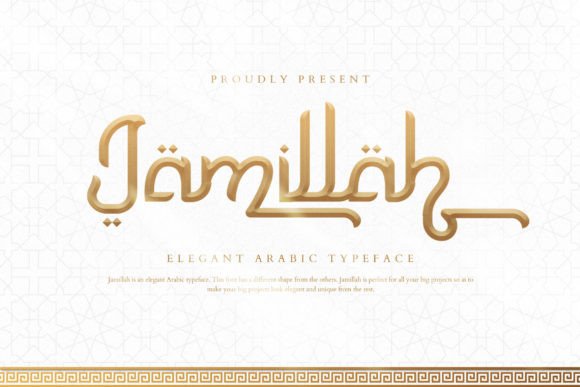
Step into the world of visual enchantment with Jamillah Font, the captivating display font that breathes life into your creative endeavors. Inspired by the rich heritage of Arabic typography, Jamillah exudes a symphony of elegance and style, poised to elevate your designs to new heights.
With Jamillah as your creative companion, immerse yourself in the realm of branding projects, logos, and wedding designs. The font's inherent charm seamlessly weaves its way into social media posts, advertisements, and product packaging, adding a touch of sophistication to every visual expression.
Jamillah's versatility extends to product designs, labels, photography, and watermarks, effortlessly enhancing the appeal of your creations. Its presence adds a touch of allure to invitations and stationery, while also making a statement in the world of typography art.
Effortlessly access the full spectrum of glyphs and ligatures with Jamillah's PUA encoding, ensuring a seamless creative flow. Explore the depths of your imagination and unleash a torrent of visual masterpieces, knowing that Jamillah is the perfect partner for your artistic journey.
Indulge in the beauty of Jamillah Font, a font that encapsulates the essence of style and elegance. Step into a realm where creativity flourishes and visual masterpieces come to life, all with the help of Jamillah, your trusted typographic companion.